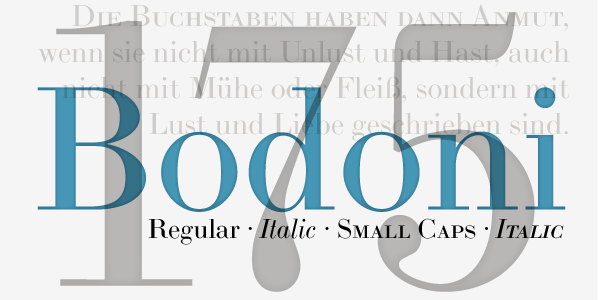
LTC Bodoni 175
Designed by Giambattista Bodoni, LTC Bodoni 175 is a serif font family. This typeface has six styles and was published by P22 Type Foundry.
Giambattista Bodoni created this modern typeface in 1790 which served as the structural model for Sol Hess
Giambattista Bodoni created this modern typeface in 1790 which served as the structural model for Sol Hess’s faithful rendition. Hess made necessary adjustments for mechanical typesetting on Lanston’s Monotype composition system. Remastered in 2006 by Paul Hunt, Bodoni Pro features lining and oldstyle figure plus a set of “French oldstyle” figures.
The Pro version also includes: long descender option, small caps, ligatures and a Central European Character set.
Bodoni Bold was drawn by London based type designer Dave Farey for Lanston Type during one of his alter-ego bouts as Giambattista Bodoni in the early 1990s. This font presents the unusual opportunity to use a Bodoni as body copy. Bodoni Bold is offered in four variations with three different types of numerals: Lining, French Oldstyle (Fournier) & Small Cap Lining Figures or with all options combined into one OpenType font.